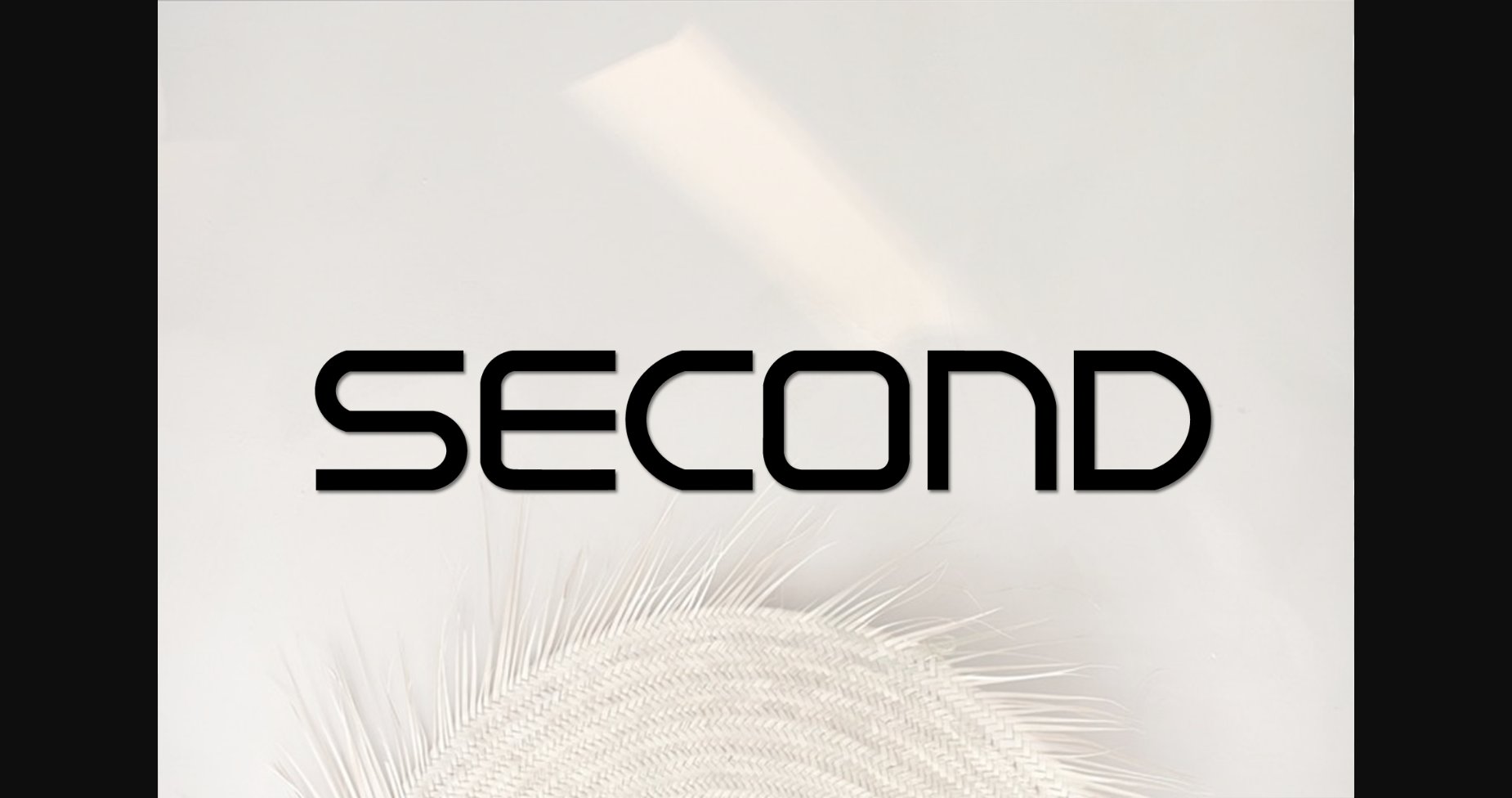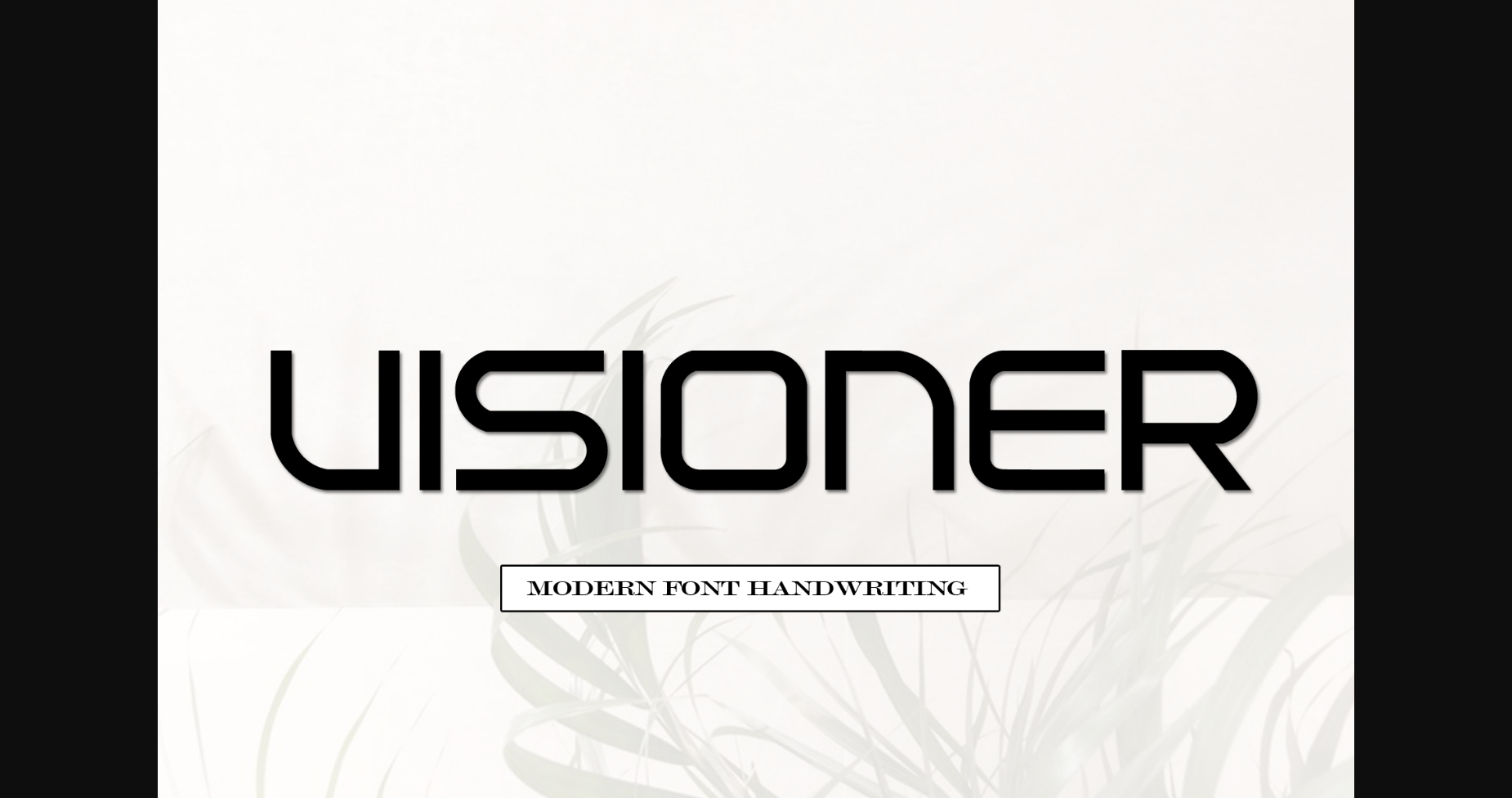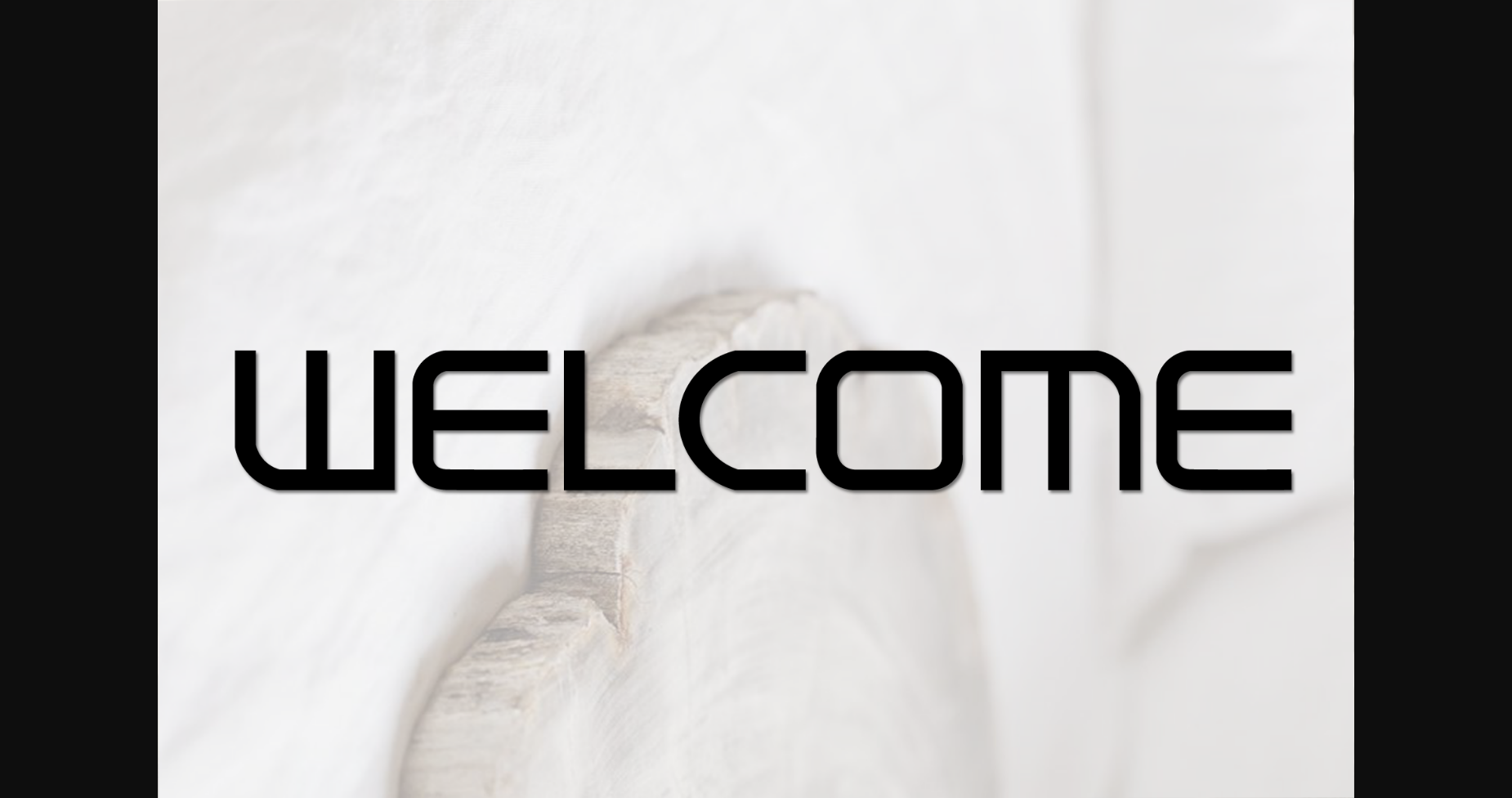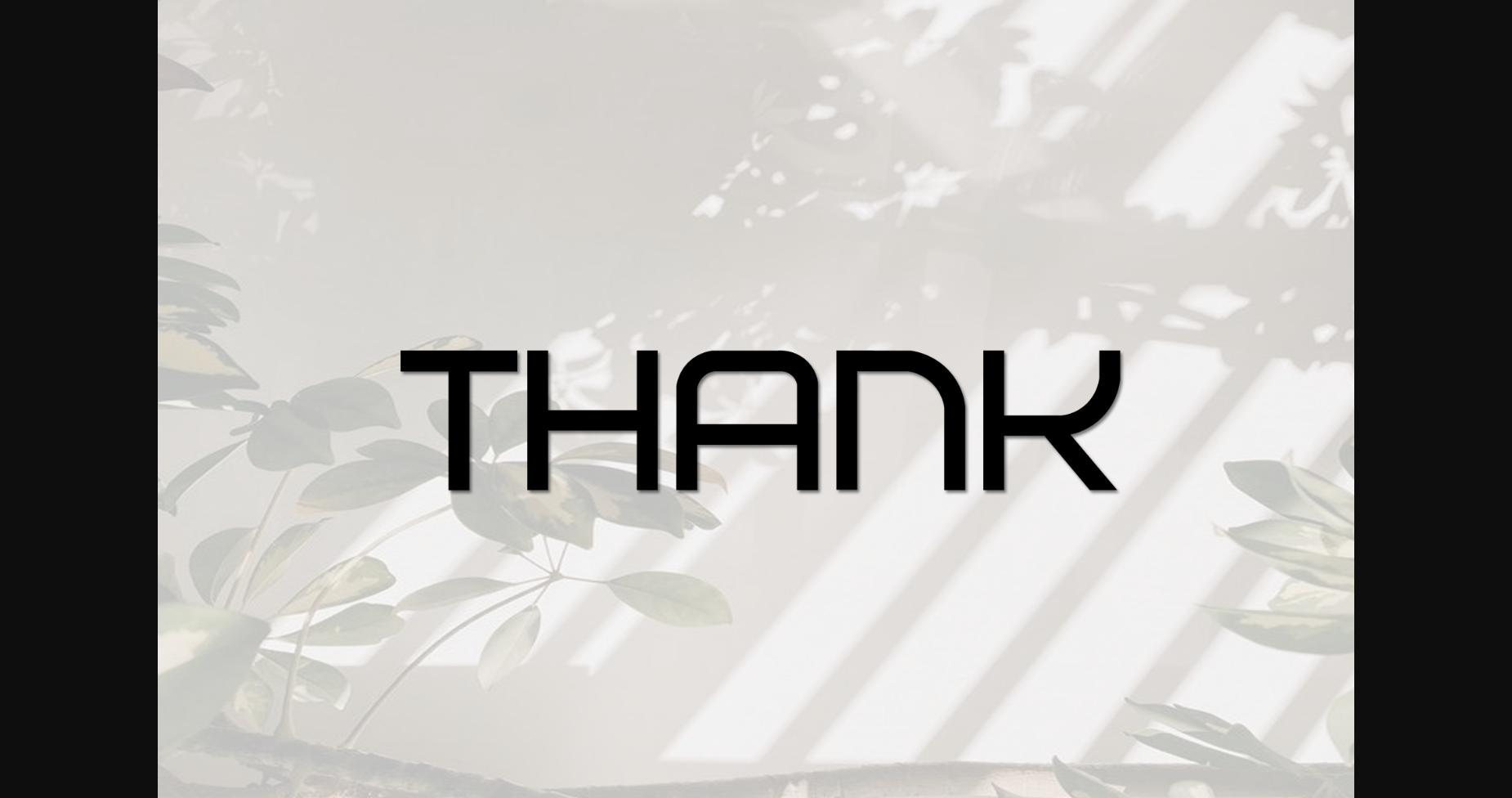
HomeSans Serif FontsVisioner Font Sans Serif Fonts Visioner Font FacebookXPinterestWhatsApp 1 of 7 ... Visioner Font Poster 2... Visioner Font Poster 3... Visioner Font Poster 4... Visioner Font Poster 5... Visioner Font Poster 6... Visioner Font Poster 7... About Visioner Font Visioner is a stylish and very elegant sans serif font. It looks amazing on wedding invitations, thank you cards, quotes, greeting cards, logos, business cards and any other design that calls for a personalized touch. DOWNLOAD NOW People also explored October Fest Font Baby Girl Font Hometona Font Rabbit Font Andenita Font Sherly Script Font Crimson and Thunder Font Joyful Kids Font Symphony Font 504 0 TagsVisioner Font Previous articleSmart People FontNext articleDivine Beauty Font LEAVE A REPLY Cancel reply Comment: Please enter your comment! Name:* Please enter your name here Email:* You have entered an incorrect email address! Please enter your email address here Website: Save my name, email, and website in this browser for the next time I comment. Personal Use Free Glosery Personal Use Free Read more about this font Sea Gardens Personal Use Free Read more about this font Maxwell Personal Use Free Read more about this font Degrassi Personal Use Free Read more about this font BLOG How to Install and Use Fonts on Windows, macOS, and Web Projects How to Install and Use Fonts on Windows, macOS, and Web Projects Fonts are a crucial part of design and branding. Whether you’re designing a... Top 7 Google Fonts Alternatives for Faster and Privacy-Friendly Web Design (2025) Elegant Wedding Invitation Fonts – Handwritten & Script Fonts How to Cut Any Font on Cricut: Convert a Font to SVG (Free)